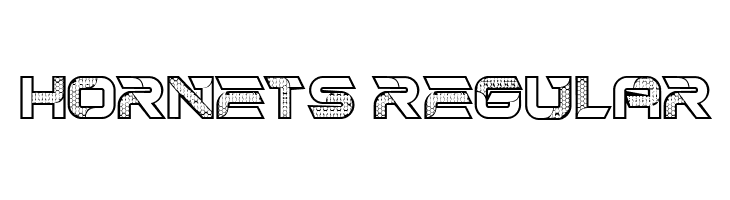
A bold, geometric font with a textured fill and sharp angles, perfect for modern designs.
A bold, textured font with a honeycomb pattern, perfect for decorative projects.